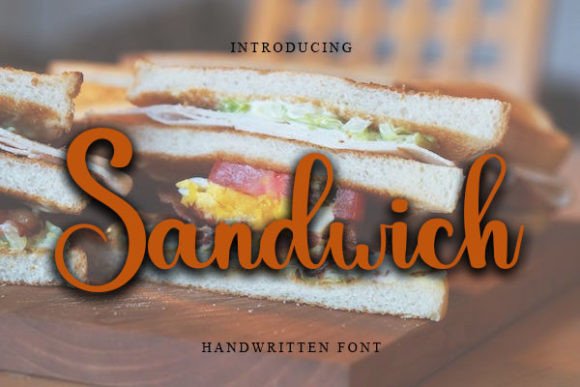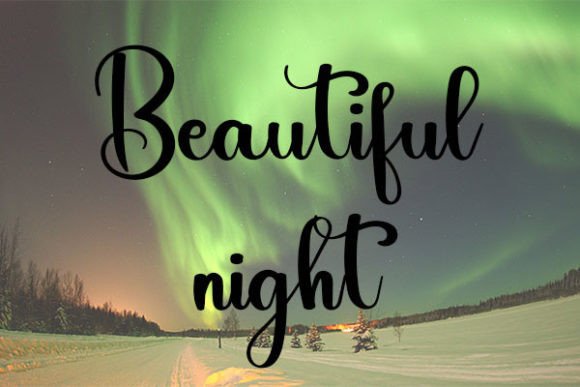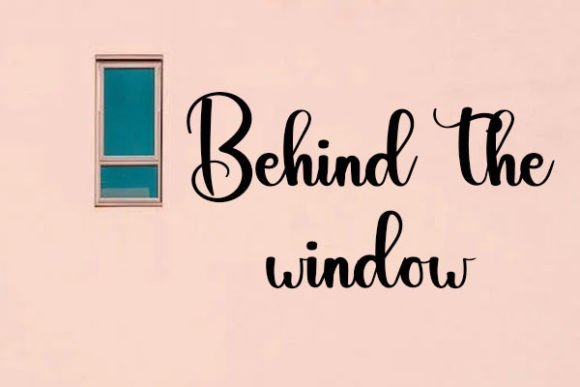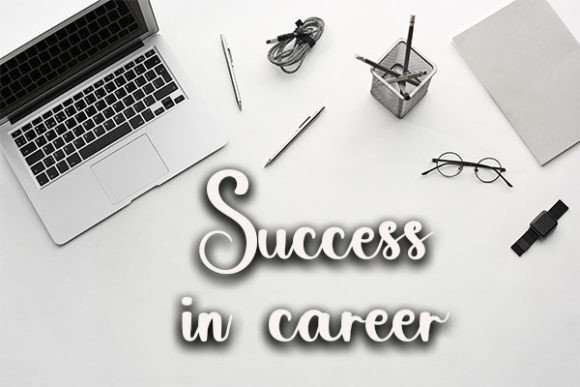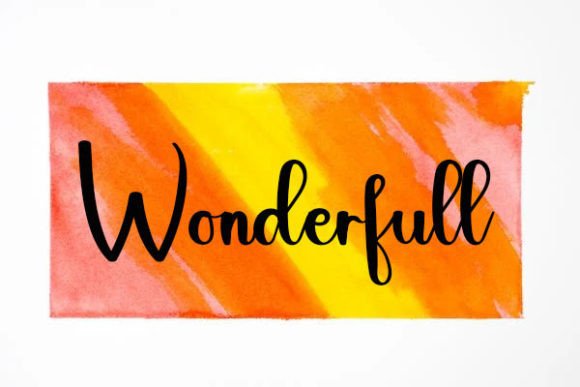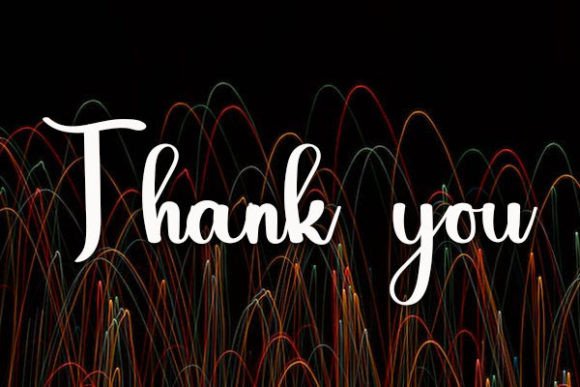
Sandwich Font
Sandwich Font Download – Cute Casual Handwritten Script
The Sandwich Font download is a fun handwritten script designed to add friendliness and charm to your creative work. With its casual strokes and approachable look, this font makes every design feel more personal and engaging. Because of its versatile structure, it adapts seamlessly to digital and print projects.
Cute and Casual Handwritten Style
Sandwich features smooth lines and rounded characters that create a warm handwritten look. As a result, it adds personality and style without sacrificing readability. In addition, its playful vibe makes it suitable for both personal and professional design uses.
Perfect for Instagram and DIY Crafts
From Instagram posts to handmade DIY projects, this font brings life and creativity to your designs. It gives words a natural handwritten flow while staying stylish. Therefore, it is an excellent option for social media content and personal projects.
Sandwich Font Download for Invitations and Posters
The Sandwich Font download is also ideal for invitations, posters, and branding. Its casual handwritten feel adds authenticity and uniqueness to creative projects, helping them stand out.
Versatility Across Creative Projects
This font adapts beautifully to logos, packaging, stickers, and greeting cards. In addition, it works equally well in digital and print media, making it reliable for a wide range of applications.
Readability and Balanced Design
Unlike overly decorative fonts, Sandwich maintains clarity while keeping a friendly style. As a result, it is effective for bold titles, product labels, and even smaller supporting text.
Why Add This Typeface to Your Collection?
The SandwichFont download is versatile, approachable, and simple to use. In other words, it works for Instagram posts, invitations, logos, posters, and branding alike. Finally, it is a handwritten script that adds cuteness, charm, and casual creativity to every project.